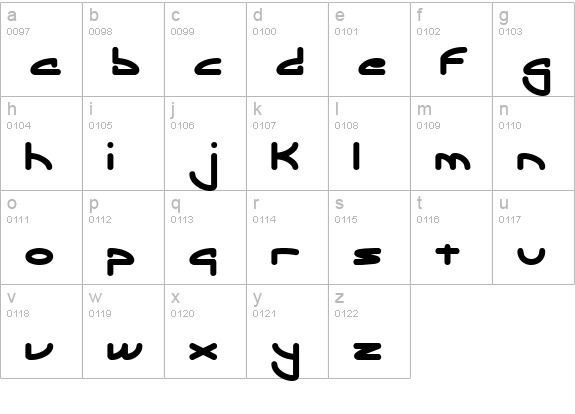
Ecliptic -BRK- Font Details
Ecliptic -BRK- font is a stunning display typeface that effortlessly combines elegance and modernity. With its sleek and stylish design, this font is perfect for a wide range of creative projects, from branding and advertising to social media graphics and website design. The unique and eye-catching letterforms of Ecliptic -BRK- font make it stand out from the crowd, ensuring your message will be noticed and remembered. Its smooth curves and clean lines give the font a sense of sophistication, while its bold and strong presence commands attention. One of the best features of Ecliptic -BRK- font is that it is available for free download at FontsMarket.com. This means that you can start using this exceptional font in your projects without any cost, making it a valuable asset for designers, creatives, and content creators on a budget. Whether you're looking to create striking headlines, captivating logos, or stylish invitations, Ecliptic -BRK- font has got you covered. Its versatility allows it to effortlessly adapt to various design styles, making it an excellent choice for both professional and personal projects. Don't miss out on the opportunity to enhance your designs with the beautiful and versatile Ecliptic -BRK- font. Download it for free at FontsMarket.com and elevate your creative projects to new heights.